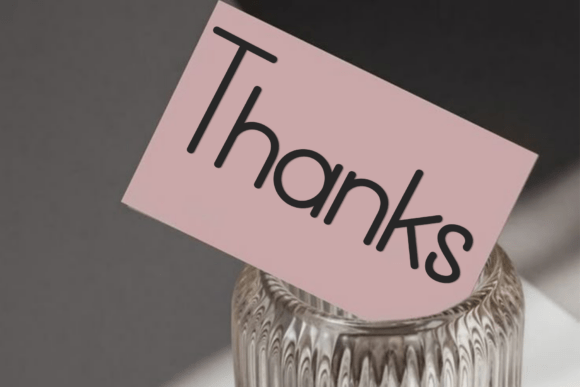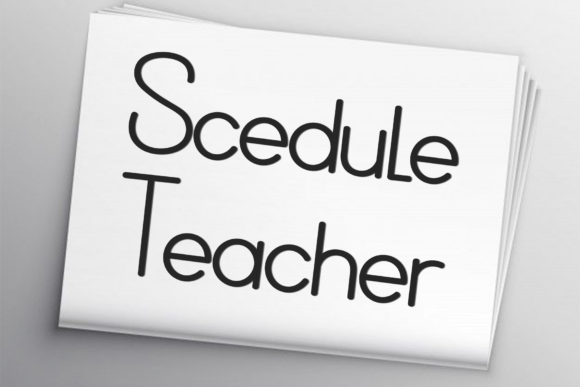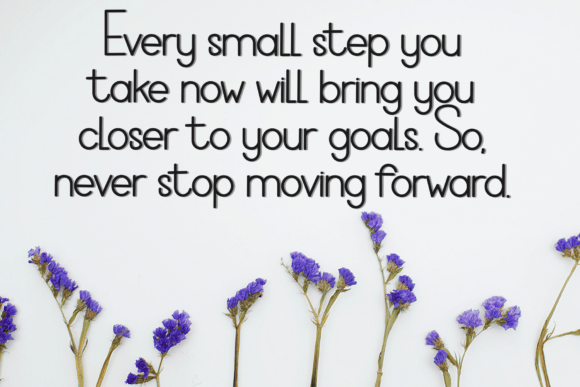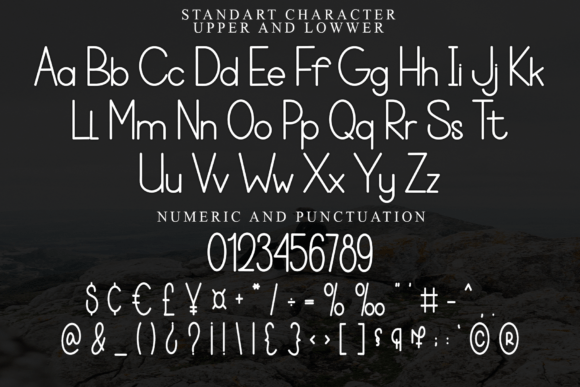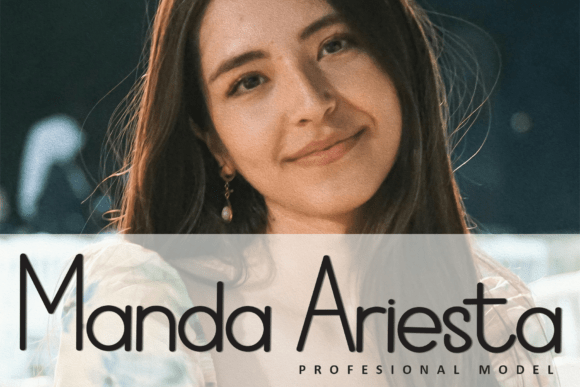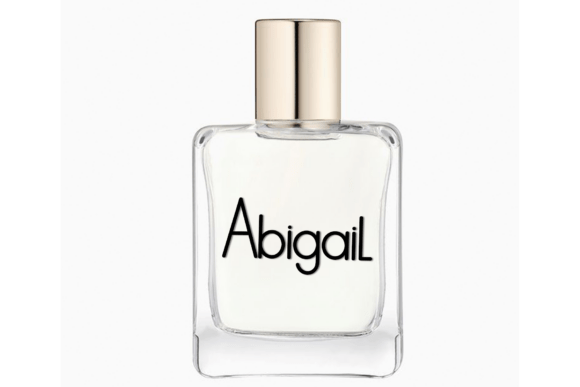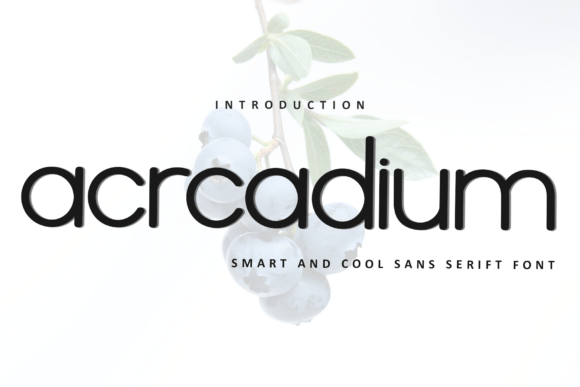
Introducing Acrcadium Font: The Epitome of Modern Design
In the realm of typography, few fonts have managed to capture the essence of modernity and sophistication as effectively as Acrcadium. This sleek, ultra-modern sans serif typeface is the perfect embodiment of “smart and cool” design, making it an ideal choice for designers and crafters looking to elevate their projects with a touch of futuristic elegance.
Design Characteristics of Acrcadium
Acrcadium’s design is marked by its clean, geometric lines and perfectly rounded terminals, which contribute to its futuristic yet highly approachable aesthetic. The font’s generous spacing and consistent monolinear weight enhance its readability and versatility, making it suitable for a wide range of applications. From tech-focused branding and minimalist web interfaces to app design and contemporary lifestyle labels, Acrcadium offers a polished, professional look that feels both effortless and innovative.
Key Features of Acrcadium Font
- Clean and Geometric Lines: Acrcadium’s design is characterized by its clean and geometric lines, which give it a modern and sleek appearance.
- Perfectly Rounded Terminals: The font’s terminals are perfectly rounded, adding a touch of elegance and sophistication to its overall aesthetic.
- Generous Spacing: Acrcadium’s generous spacing enhances its readability and makes it ideal for use in digital media, such as web interfaces and app design.
- Consistent Monolinear Weight: The font’s consistent monolinear weight gives it a cohesive and harmonious appearance, making it perfect for use in branding and advertising.
Use Cases for Acrcadium Font
Acrcadium’s versatility and modern aesthetic make it an excellent choice for a variety of design projects. Some of the most suitable use cases for this font include:
- Tech-Focused Branding: Acrcadium’s futuristic and sleek design makes it perfect for tech-focused branding, including logos, business cards, and letterheads.
- Minimalist Web Interfaces: The font’s clean and geometric lines make it an ideal choice for minimalist web interfaces, adding a touch of modernity and sophistication to any website.
- App Design: Acrcadium’s readability and versatility make it a popular choice for app design, including mobile apps, tablet apps, and wearable device interfaces.
- Contemporary Lifestyle Labels: The font’s modern aesthetic and polished appearance make it perfect for use in contemporary lifestyle labels, including fashion, beauty, and food branding.
Benefits of Using Acrcadium Font
Using Acrcadium font in your design projects offers several benefits, including:
- Improved Readability: Acrcadium’s clean and geometric lines, combined with its generous spacing, make it easy to read and understand.
- Enhanced Professionalism: The font’s polished and professional appearance adds a touch of sophistication to any design project.
- Increased Versatility: Acrcadium’s consistent monolinear weight and clean design make it suitable for use in a wide range of applications.
- Modern Aesthetic: The font’s futuristic and sleek design gives any project a modern and contemporary feel.
In conclusion, Acrcadium font is a sleek, ultra-modern sans serif typeface that embodies the essence of “smart and cool” design. Its clean, geometric lines, perfectly rounded terminals, and generous spacing make it an exceptional choice for tech-focused branding, minimalist web interfaces, app design, and contemporary lifestyle labels. Whether you are building a modern corporate identity or a clean social media layout, Acrcadium delivers a polished, professional look that feels both effortless and innovative. With its improved readability, enhanced professionalism, increased versatility, and modern aesthetic, Acrcadium font is an excellent addition to any design project.